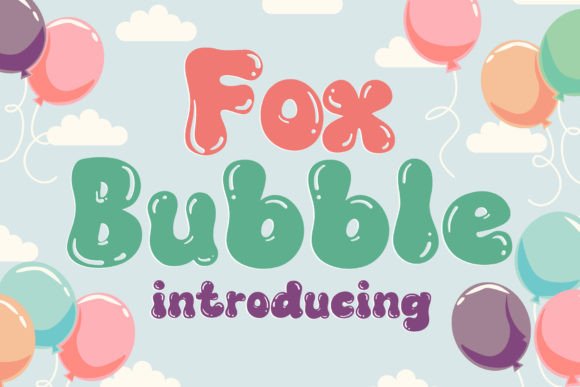
Introducing the incredibly groovy Fox Bubble Font, a playful display font that effortlessly captures the cool and retro style. Created by the talented Fox7, this font is a must-have for those looking to elevate their design game and add a touch of personality to their projects.
With its fun and funky letterforms, Fox Bubble Font is the ultimate choice for anyone wanting to make a statement. Whether you're working on a t-shirt design, sticker creation, children's book cover, social media posts, or anything in between, this font will make your designs truly stand out from the crowd.
Imagine the impact your menu word will have when beautifully crafted using the Best Font For Menu Word. Fox Bubble Font will instantly captivate your audience and create a memorable impression. Its eye-catching aesthetic will draw attention and leave a lasting impact on anyone who lays eyes on it.
But it doesn't stop there. Fox Bubble Font goes beyond its visual appeal. It evokes emotions, bringing out a sense of nostalgia and fun. Let your creativity run wild as you infuse your designs with a playful spirit that resonates with your audience. This font is more than just letters; it's an experience.